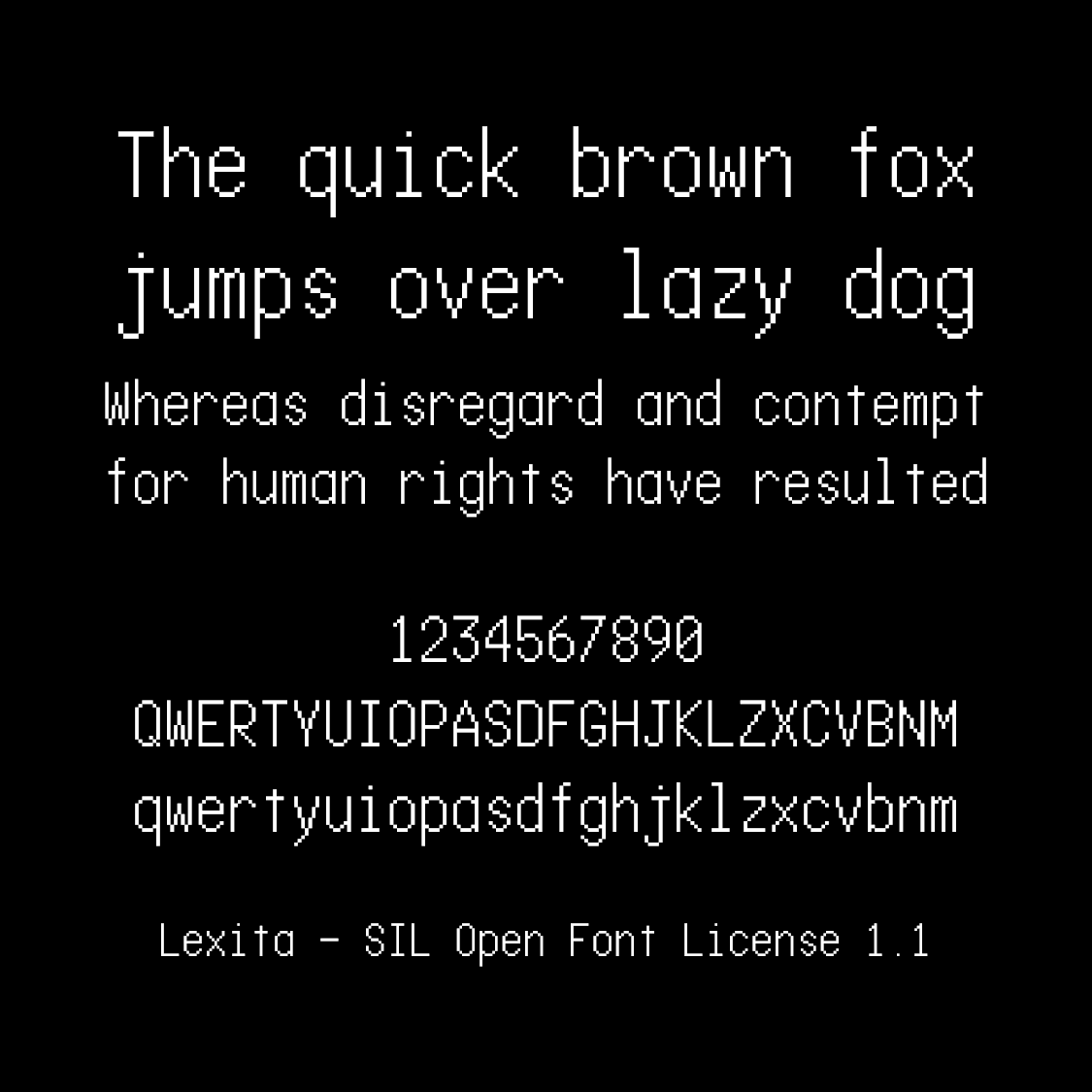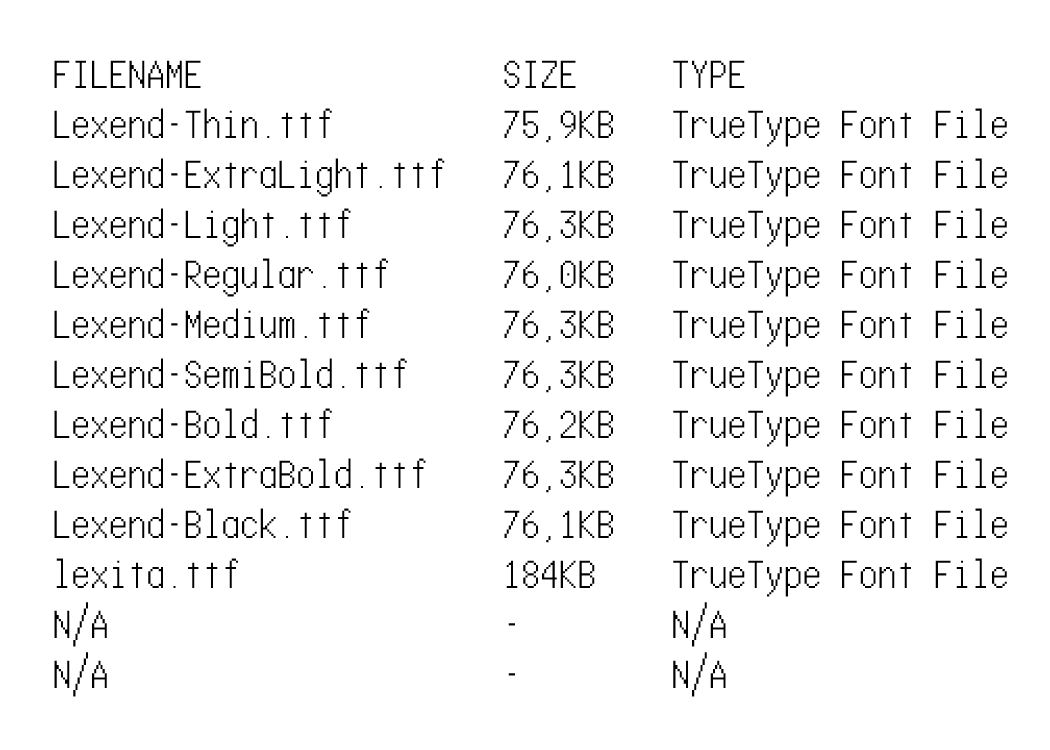
This font is formerly known as “Lexita Mono”, but I given a major updates and set a new font name to “Monixend” since 24/07/2026 in order to avoid ambiguity.
Are you using Lexend font? You should try Monixend! - It's one of monspaced font that pairs playfully with Lexend! Unlike most of Monospaced fonts, Monixend font uses the single storey "a", this similar style can also be found in the Colophon Foundy's Space Mono font.
"Monixend" is a pixelated monospaced font that designed to pair with "Lexend" fonts with playful/student-styled single storey "a", simple flat lowecase "t", modern flat top "3", and classic-styled closed "4". "Monixend" is the new version of "Ghea Code" with many optimizations. Unlike Lexend where the main focus is on the readability, Monixend is designed for coding purposes, and provides all entire vulgar fractions. Since Monixend font style is the combination between pixelated and monospaced, this font can actually used as the heading figures or either texts that actually intended as the monospaced font (like numbers that could change).
Formerly known as “Ghea Code Plus”, “Lexita”, and “Lexita Mono”.
Fun fact: The Lexita Mono/Monixend font was formerly using single-storey lowercase “æ” to make it matching with other glyphs with single-storey lowercase “a”, but the lowercase “æ” itself is now changed to double-storey form since 24 July 2026 in order to match the design with Lexend font.
- This font is rebranded to “Monixend”
- Added all additional extended Latin glyphs (Latin Extended Additional)
- Greek and Cyrillic support!
- The ampersand (&) sign is now opened-form design
- Slighty decreased the bar size on lowercase “G”
- Slighty increased the middle bar size on uppercase “E” and uppercase “F”
- The single-storey lowercase “æ” is now changed to double-storey form as the standard design rather than retaining it single-storey (This change is made because Lexend font uses double-storey lowercase “æ” while the Lexend primarily using single-storey lowercase “a” for the rest of glyphs with lowercase “a”)
- Addition of some spacing modifier glyphs (Unfortunately, for some reason, I'm not going not add Combining Diacritical Marks to this font)
- Added the Estimated symbol and the script “L”
Preview of the Lexita font
Preview of the latest update of Lexita font